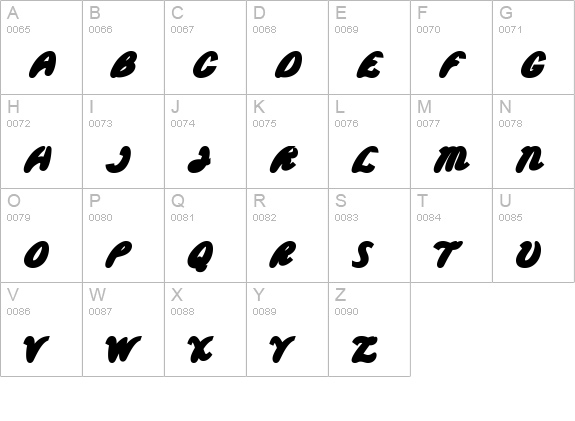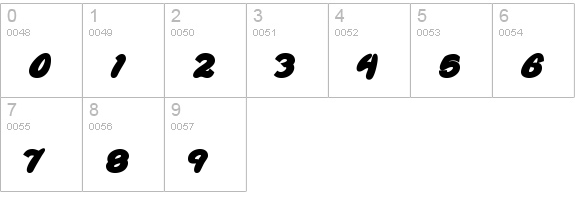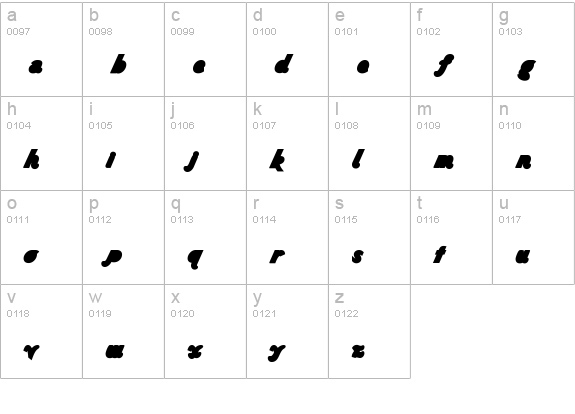
WildRideBackFill Font Details
WildRideBackFill font is a bold and energetic typeface that is sure to make a statement. With its unique and eye-catching design, this font is perfect for adding a touch of excitement to any project. Featuring a combination of sleek lines and dynamic shapes, WildRideBackFill font captures the essence of adventure and freedom. Its playful and unpredictable nature adds a sense of spontaneity to your designs, making them stand out from the crowd. Whether you're working on a poster, logo, or website, WildRideBackFill font is a versatile choice that can be used for both headings and body text. Its bold and legible characters ensure that your message is easily conveyed, while its distinct style adds a touch of personality and flair. One of the best things about WildRideBackFill font is that it is completely free to download. You can easily access this font at FontsMarket.com, where it is available for instant download. This means that you can start using this captivating and attention-grabbing font in your designs right away, without having to worry about any additional costs. So why wait? Add a touch of excitement to your designs with WildRideBackFill font. Download it for free at FontsMarket.com and let your creativity run wild.